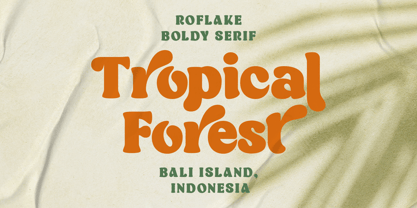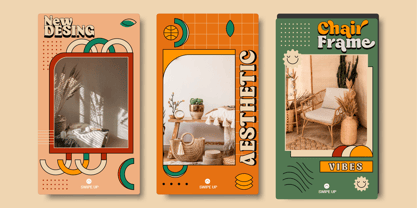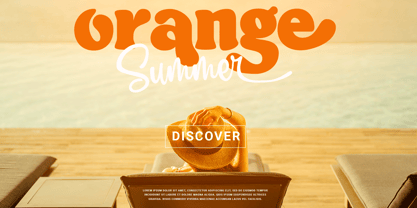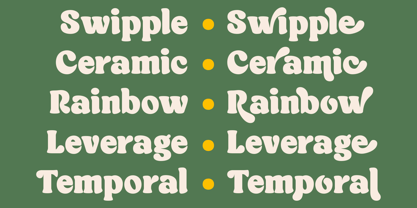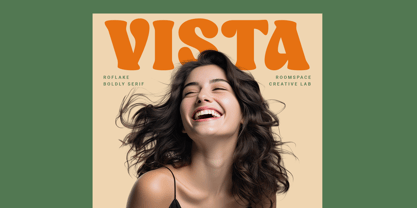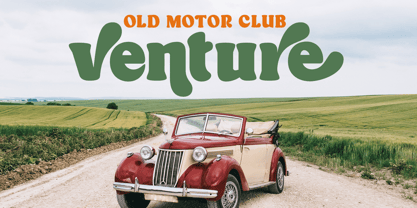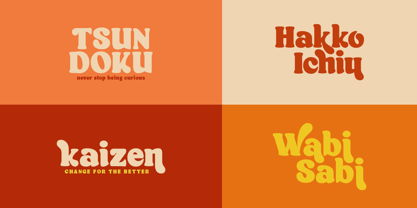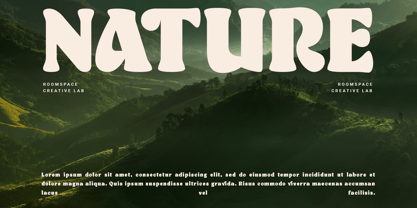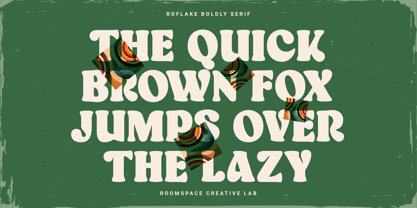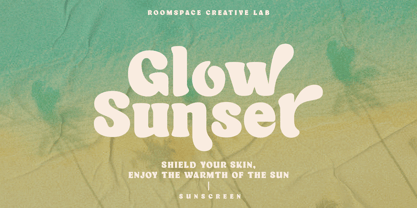
Roflake
by Jafar07
The Roflake Font Family was designed by Bakhrudin Ja'far and published by Jafar07. Roflake contains 2 styles and family package options.
Roflake font embodies a perfect blend of classic vintage serif style with a touch of modernity through its rounded edges, offering a soft and inviting appearance. Designed with strong clarity, Roflake delivers messages assertively yet retains a gentle charm, making it suitable for various design projects. The regular version of Roflake exudes sturdiness and stability, conveying a sense of reliability and trustworthiness. Its letters are clear and easy to read, while vintage serif details add an elegant touch.